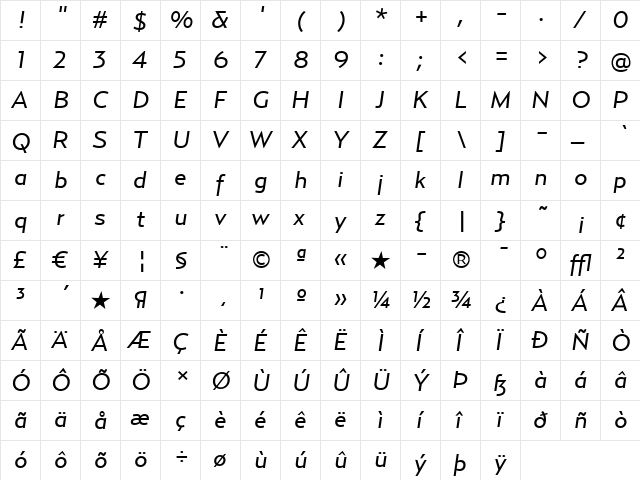
RelayWide-RegularItalic Regular
| Designer | Cyrus Highsmith |
Design Context for RelayWide-RegularItalic Typeface
RelayWide-RegularItalic is a composed and adaptable typeface that performs quietly and consistently across a wide range of design contexts. The dynamic lean of this cut emphasises speed and emphasis in any layout.
Pro Tip: Try RelayWide-RegularItalic for annotation and caption copy alongside an upright companion — the contrast in angle creates a dynamic but ordered typographic system.